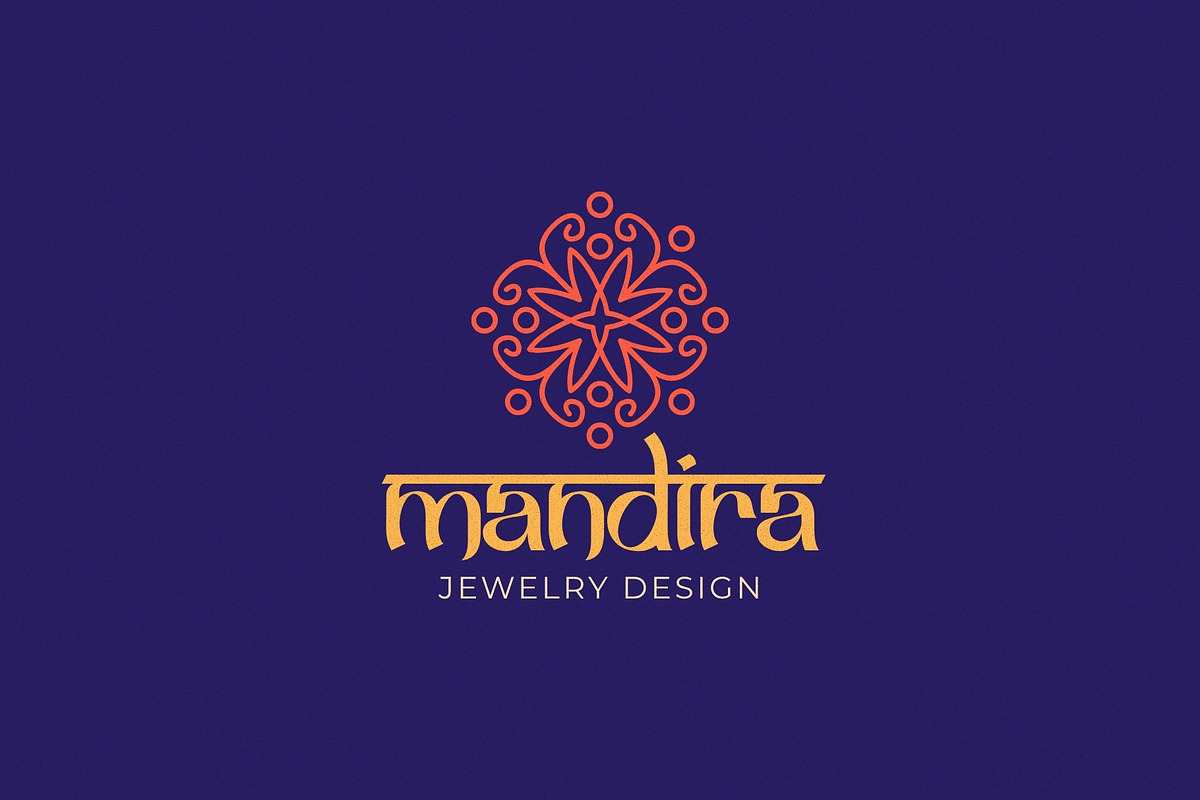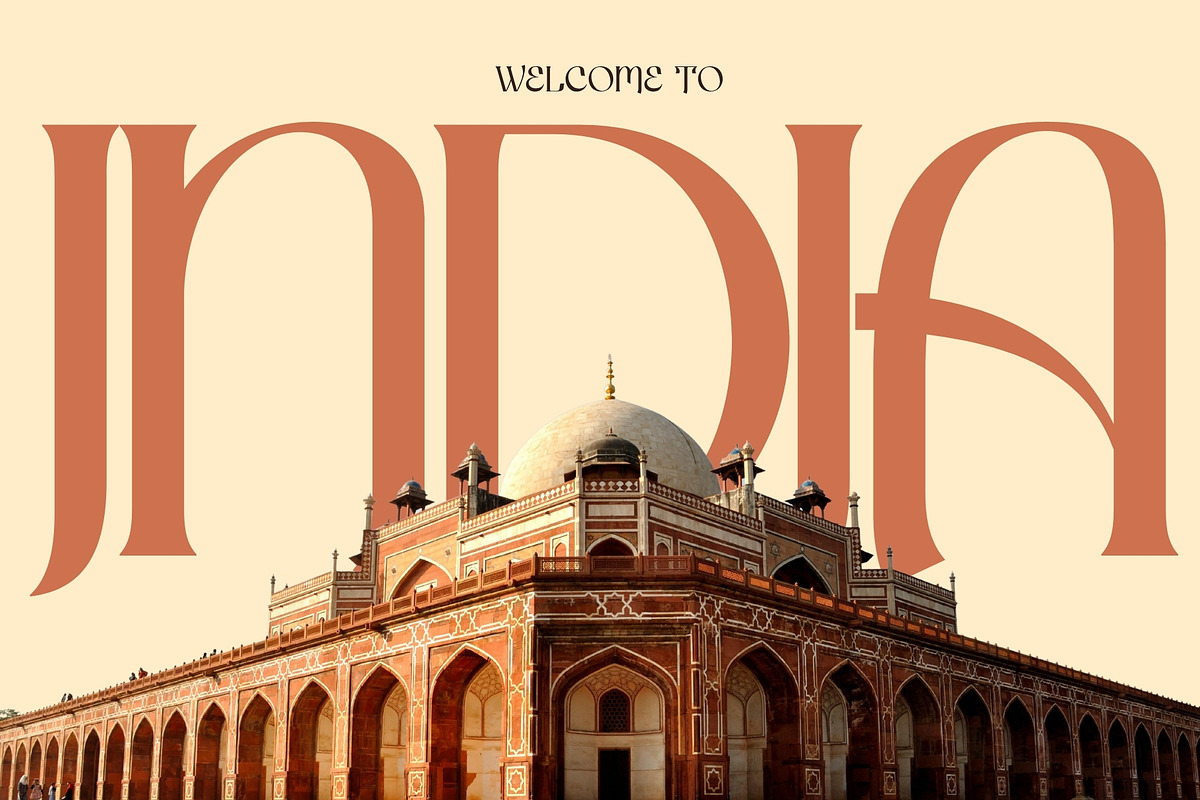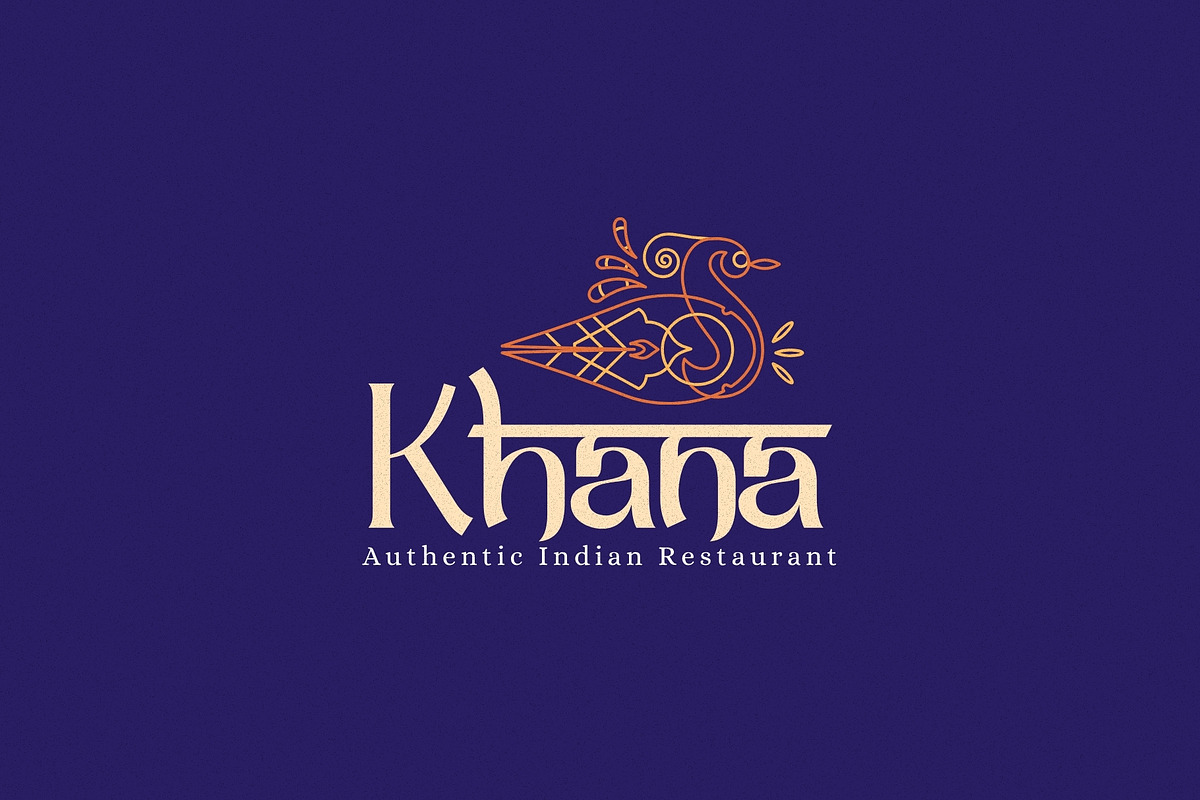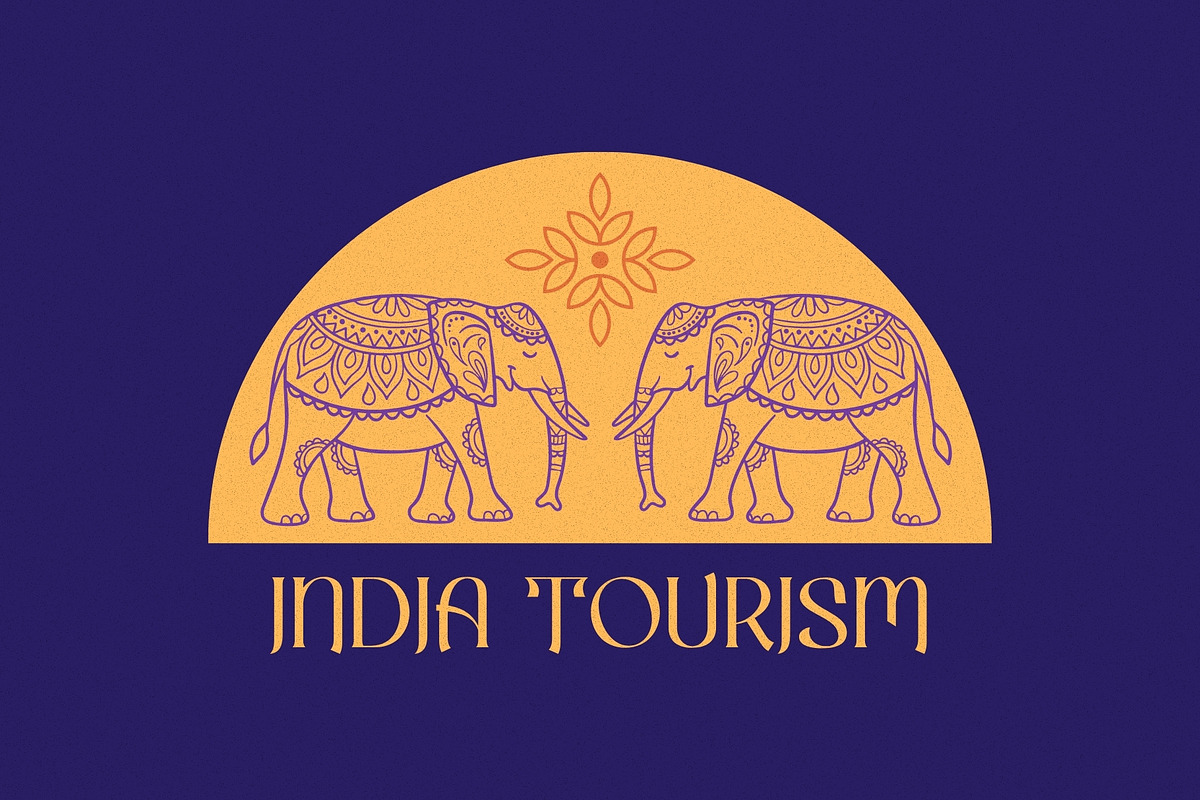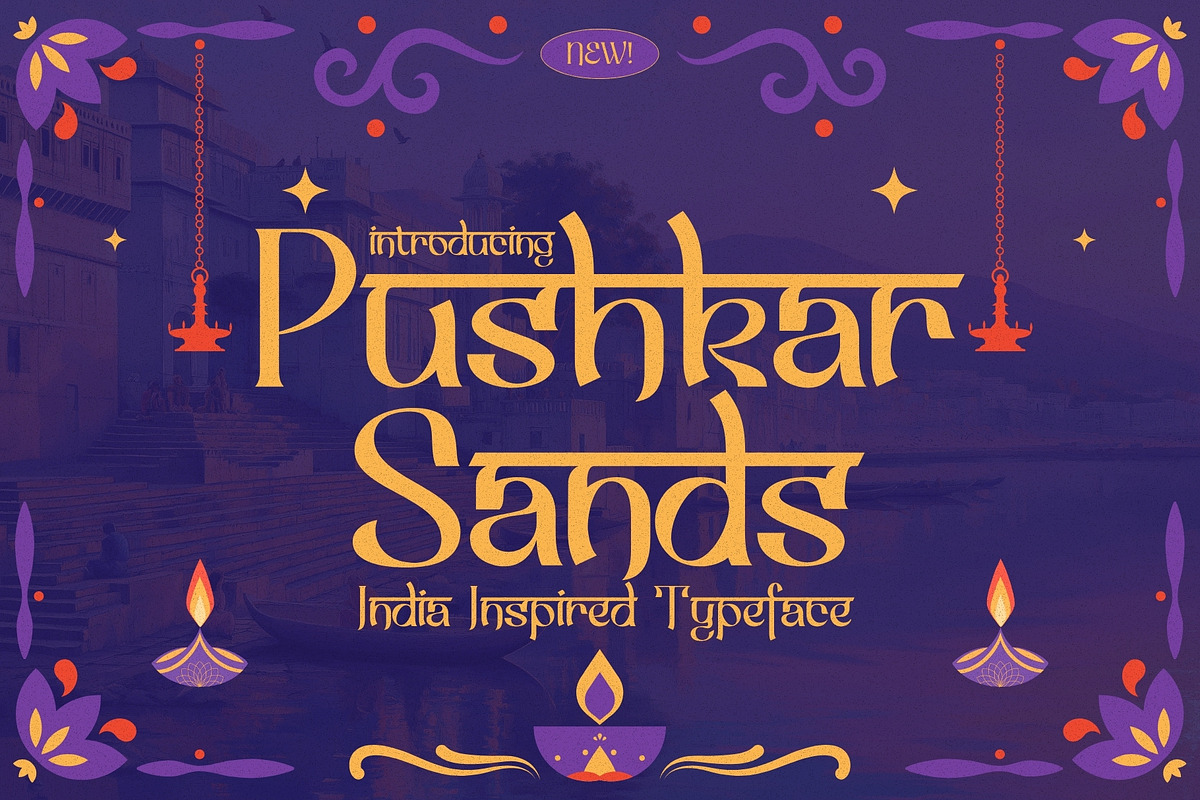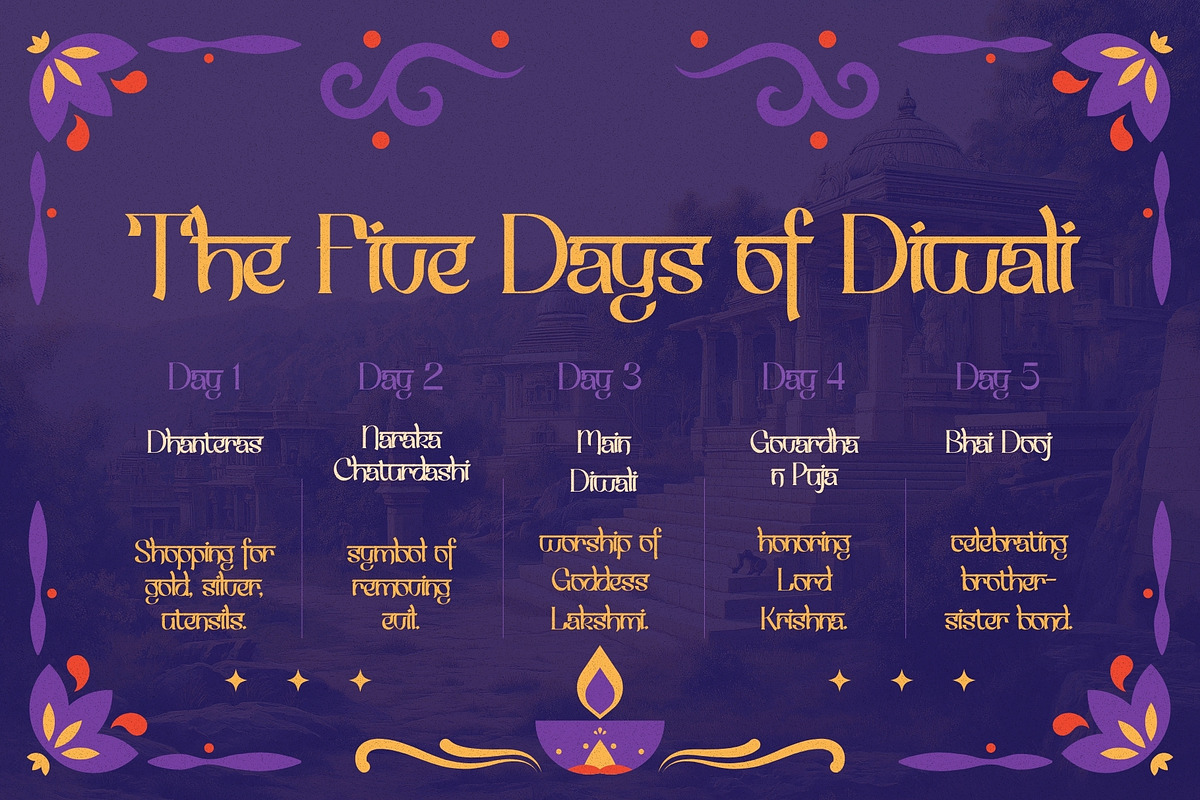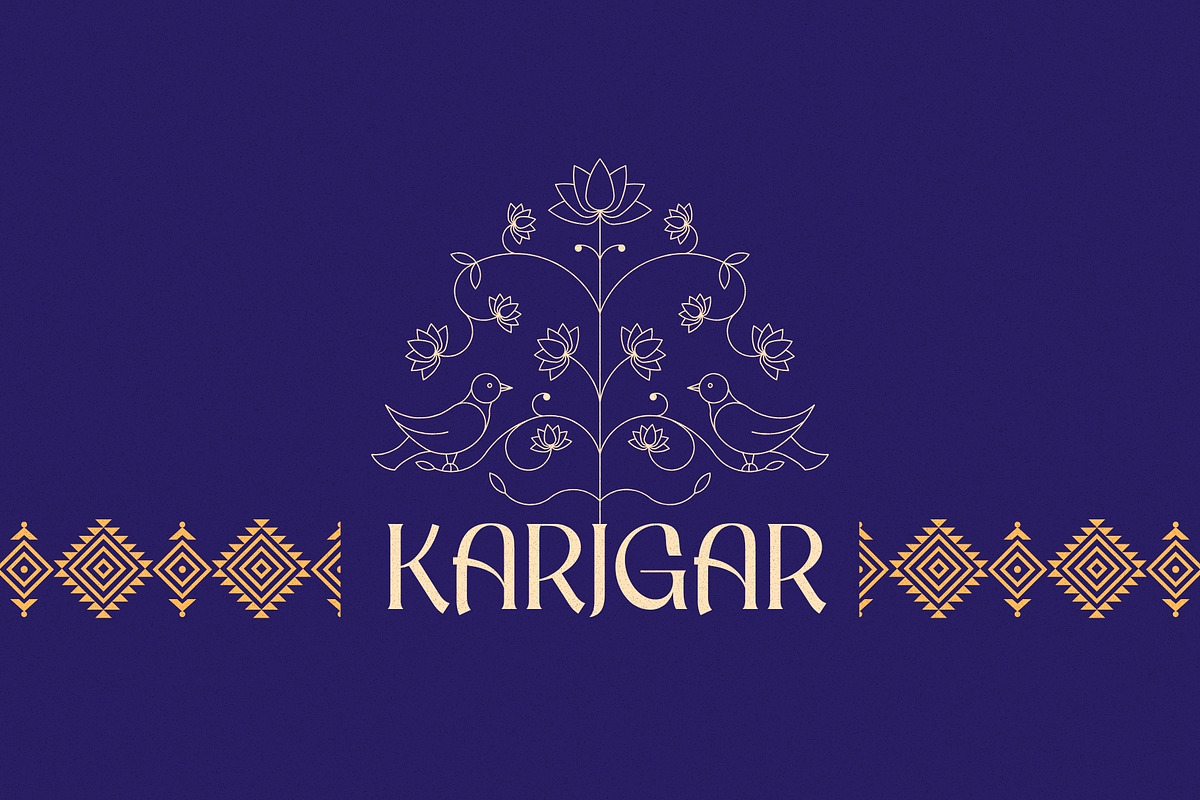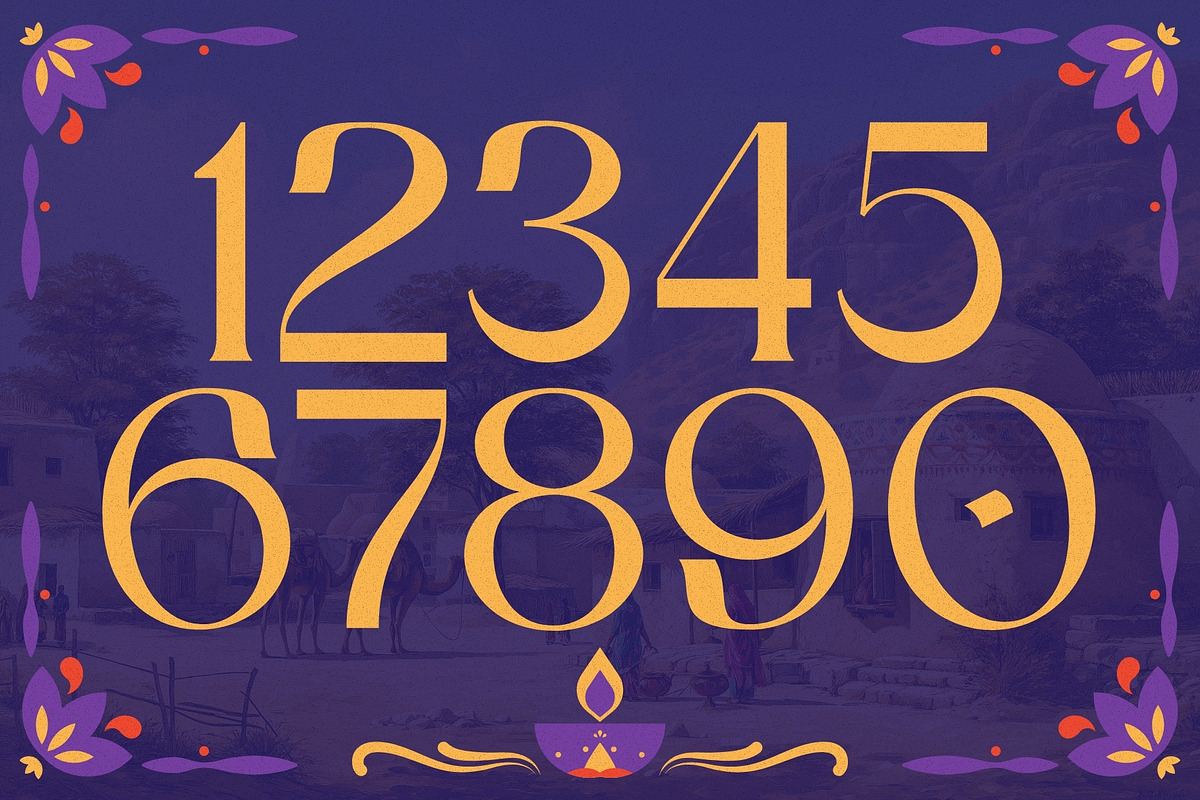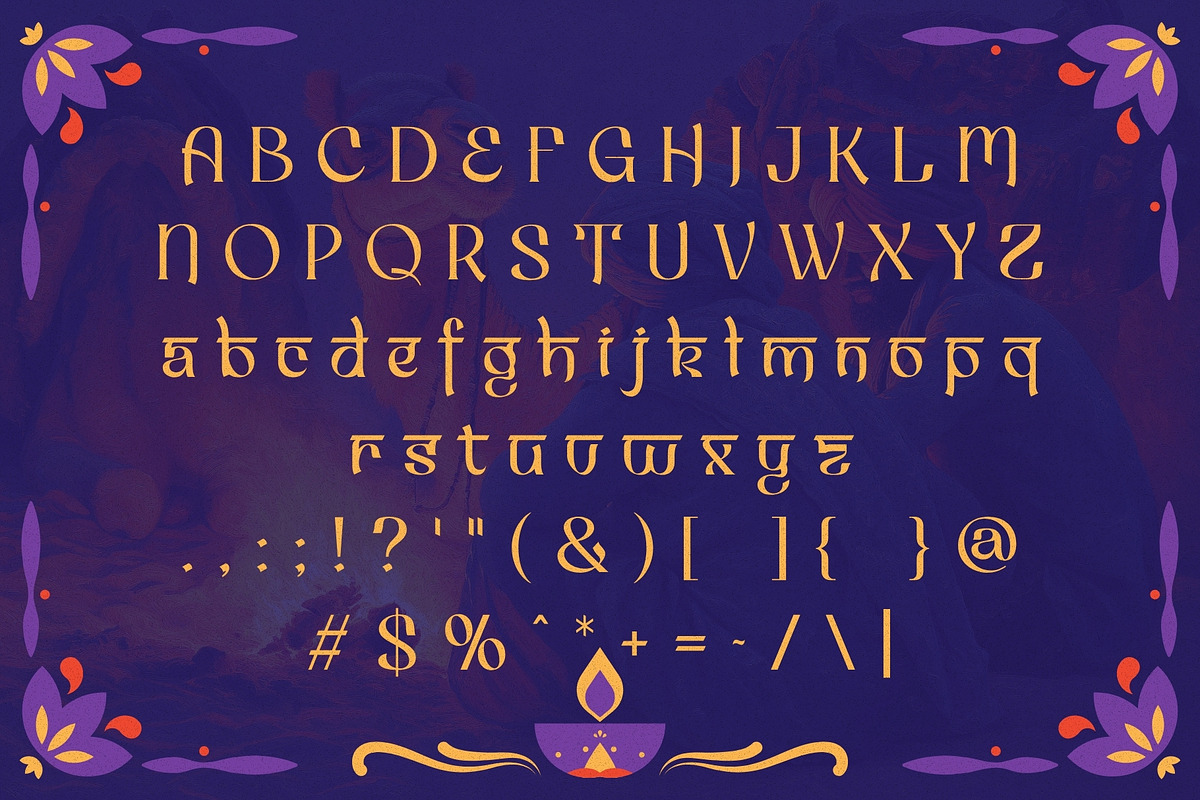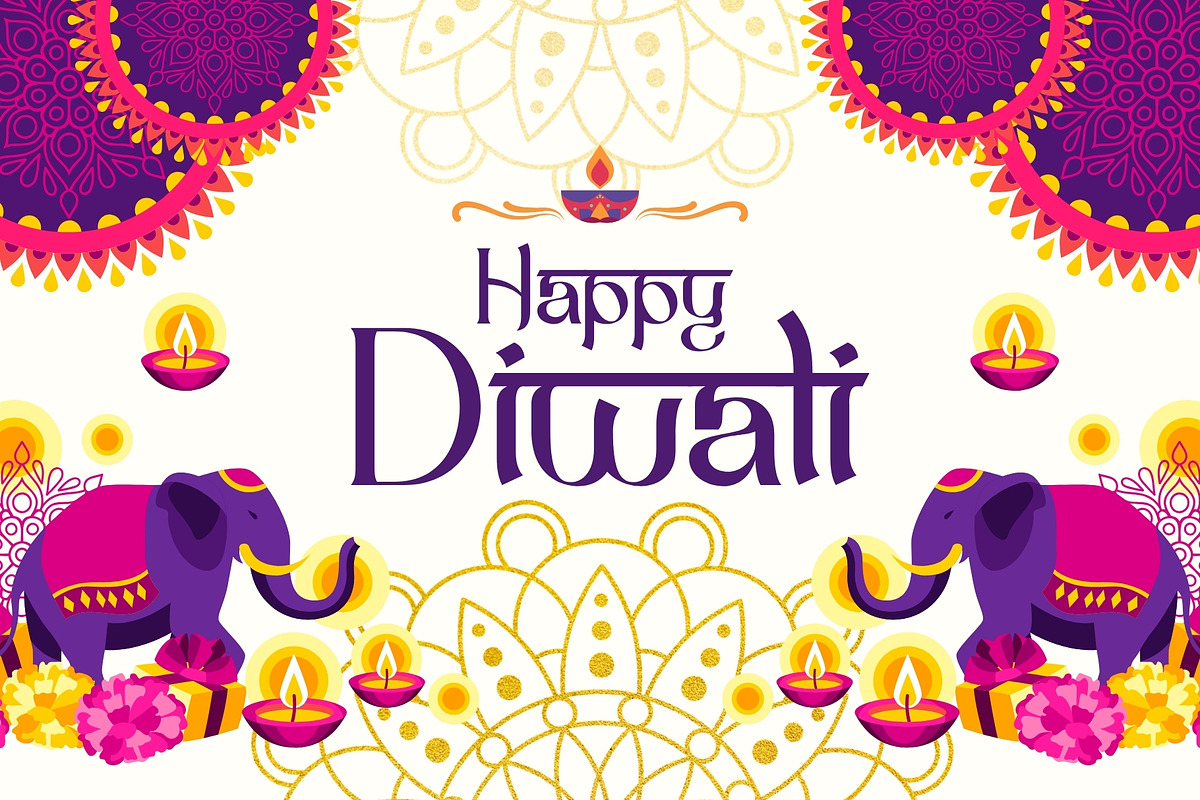
Pushkar Sands - India Inspired Type
Pushkar Sands is an enchanting Indian-inspired display typeface that captures the soul of Rajasthan’s desert beauty and the festive warmth of India’s cultural heritage. With both uppercase and lowercase letters, this font blends traditional elegance with modern design sensibility.
Inspired by the glowing charm of Diwali lanterns, the curves of ancient temple architecture, and the decorative motifs of Pushkar’s vibrant streets, Pushkar Sands radiates personality and authenticity. Its bold strokes, smooth flowing lines, and subtle handcrafted character make every word feel rich, celebratory, and full of life.